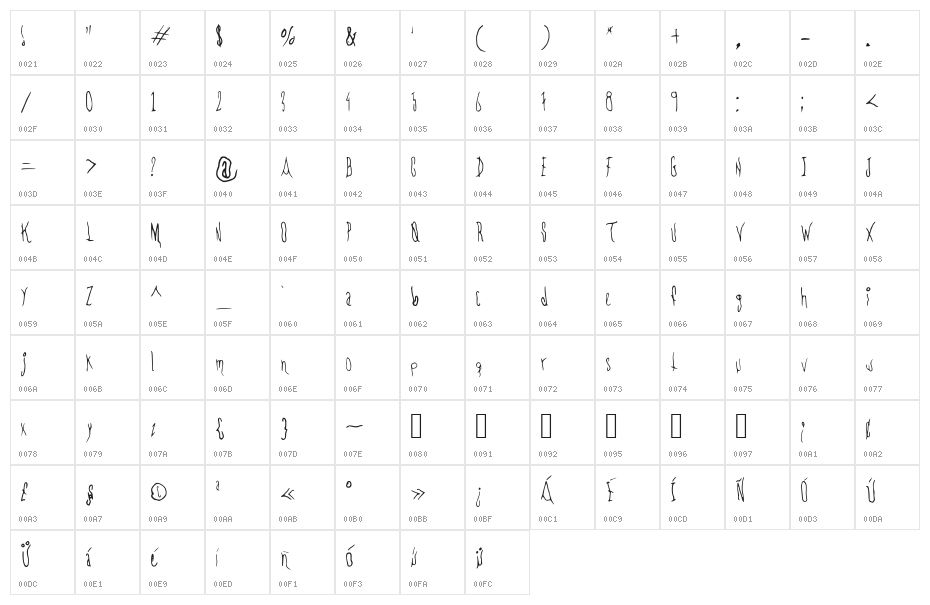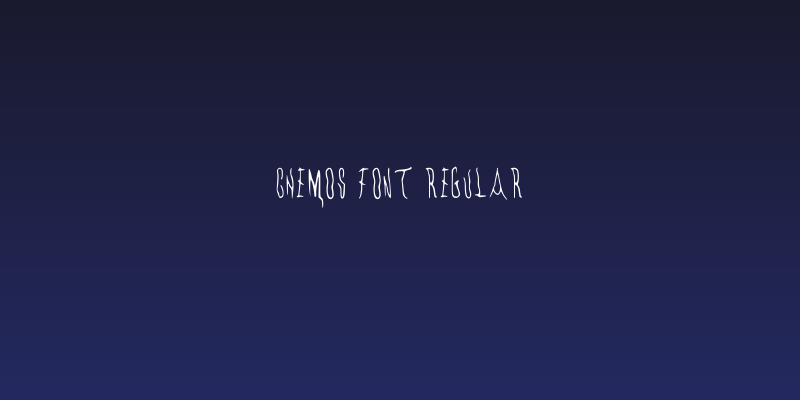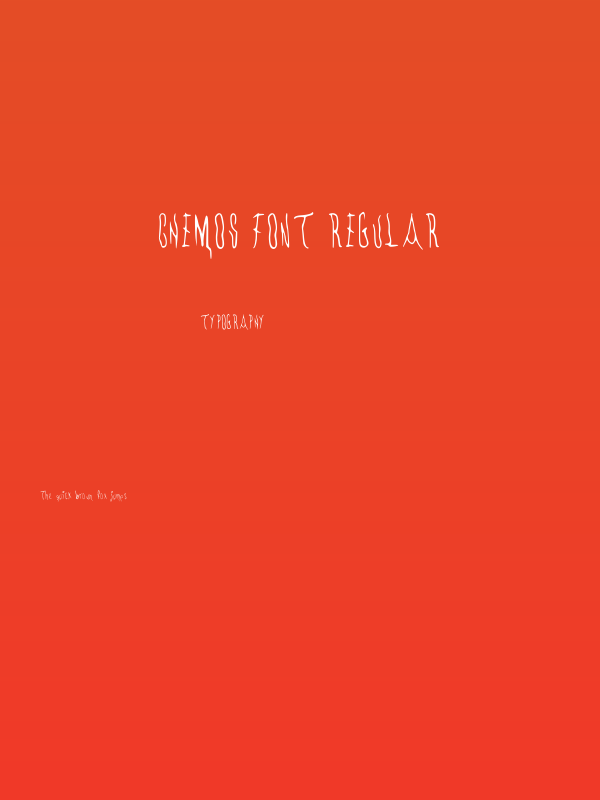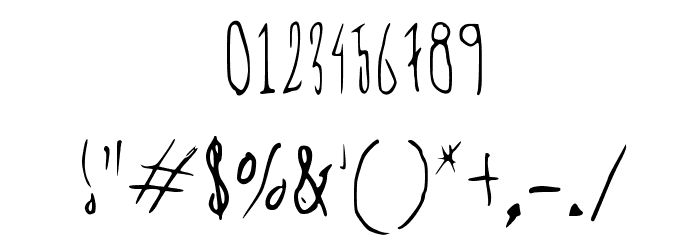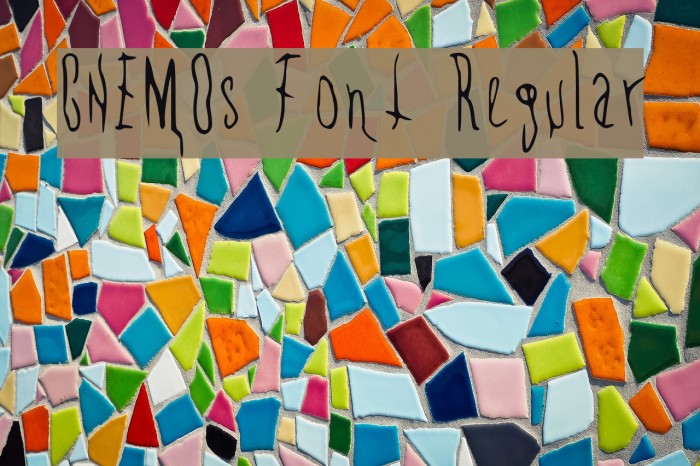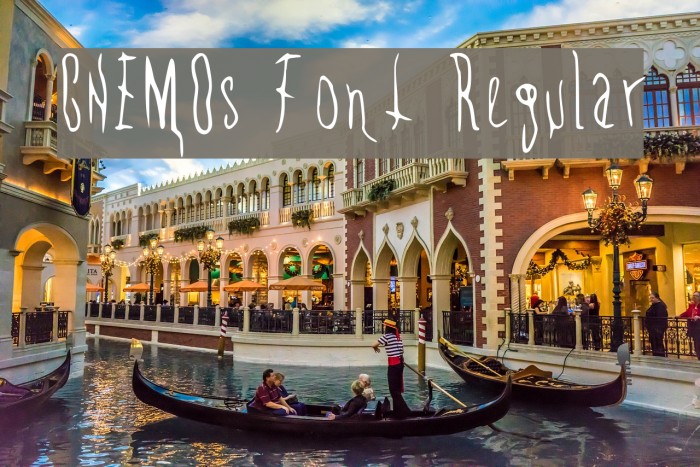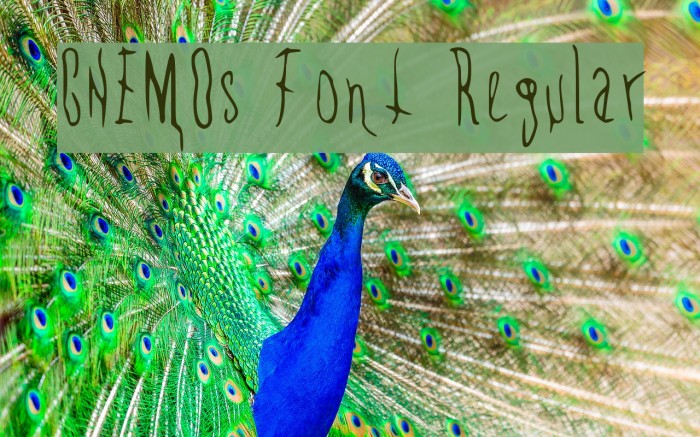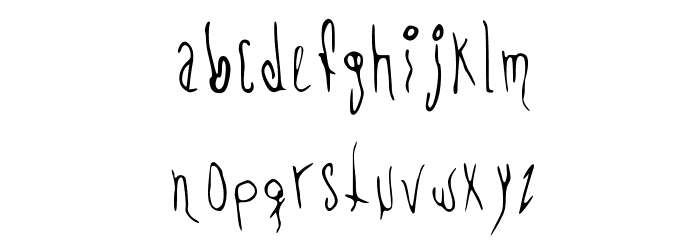
CHEMOs Font Regular Font
CHEMOs Font Regular Description
This font features a unique, whimsical design with irregular, wavy strokes that give it a hand-drawn appearance. The characters are elongated and slightly distorted, creating a playful and artistic vibe. The uppercase letters are tall and narrow, while the lowercase letters maintain a consistent style with quirky variations. Numbers and special characters follow the same artistic theme, adding to the font's cohesive look. The overall design is reminiscent of a creative, free-spirited style, making it ideal for projects that require a touch of individuality and flair.
| Overall Style | Artistic, Whimsical |
| Use Case | Headlines, Artistic projects, Branding |
| Proposed Projects | Ideal for creative projects such as children's book covers, artistic posters, and unique branding materials. |